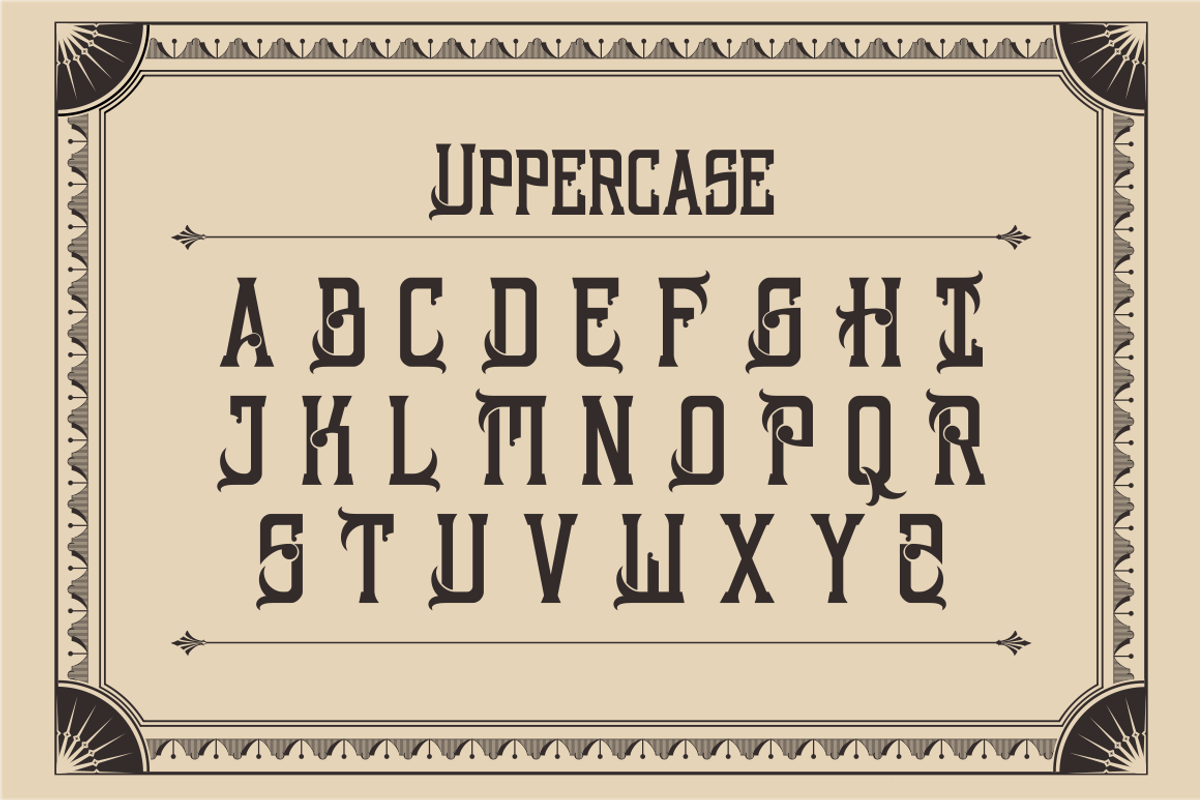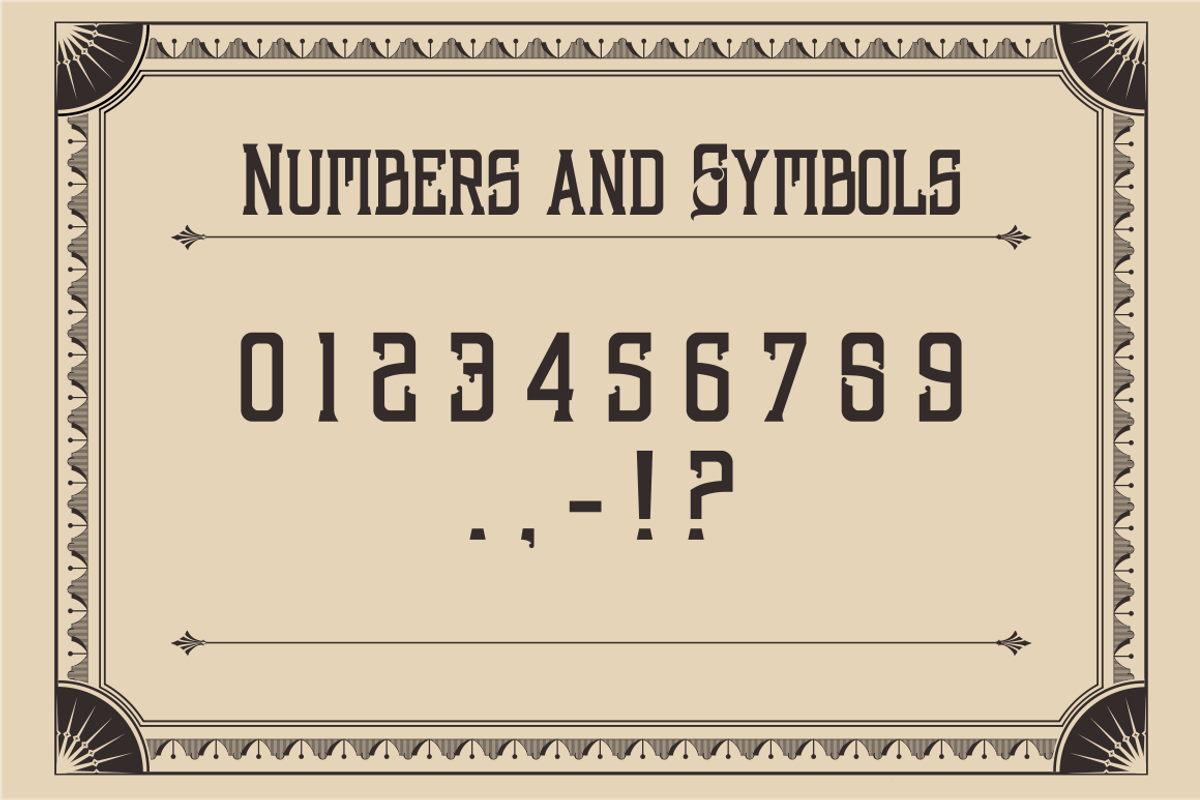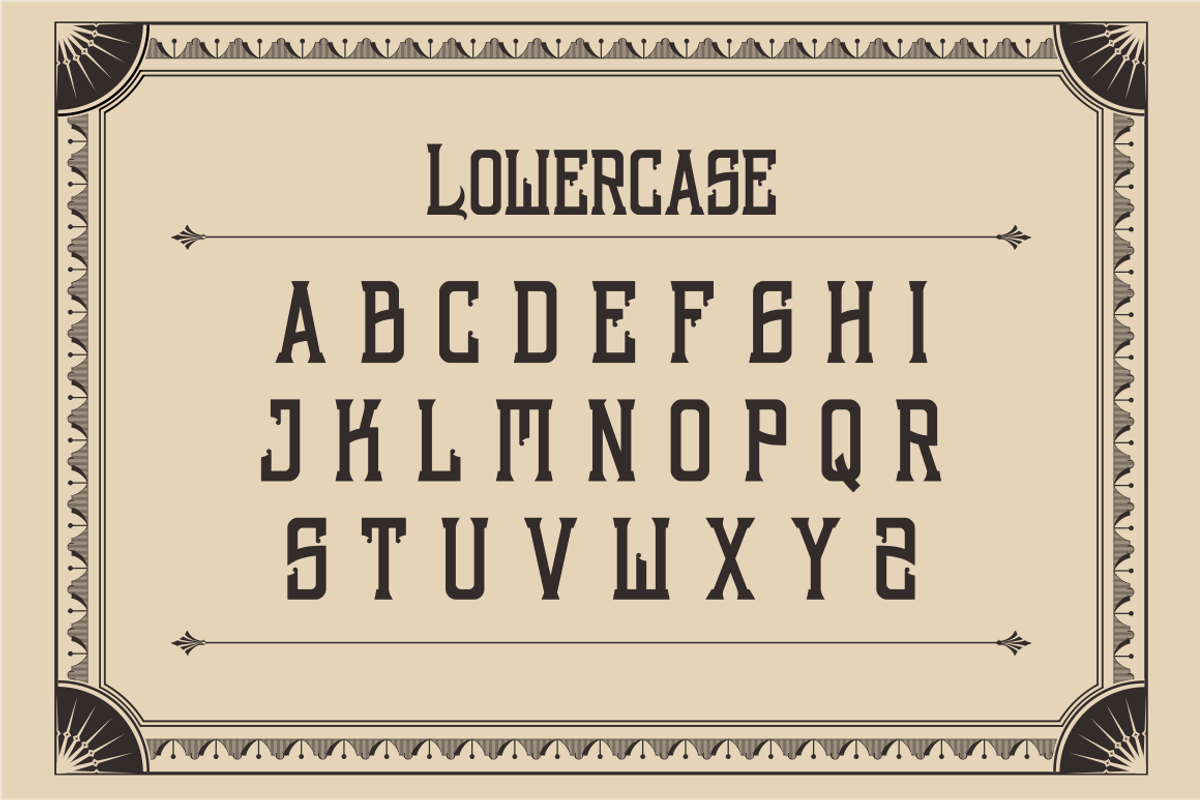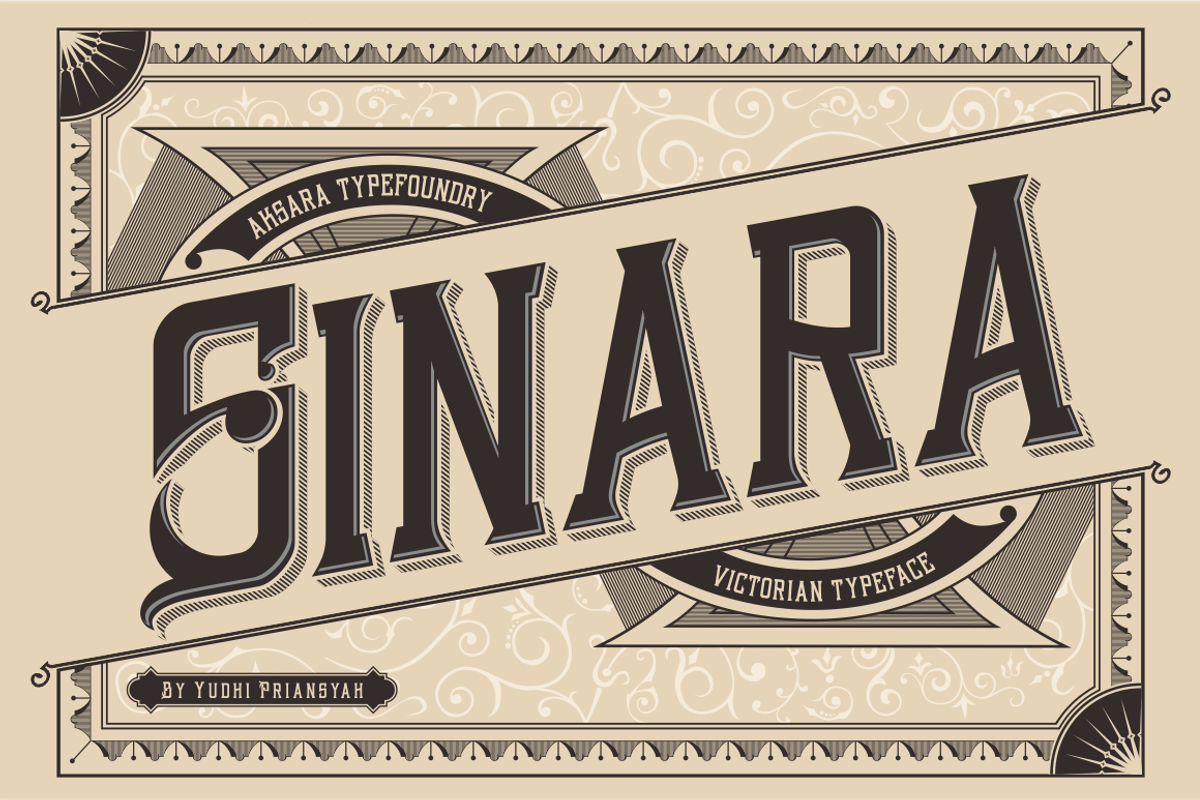
Sinara Font
Sinara Font by Aksara Typefoundry is a font selected for branding, posters, packaging, typography.
Why Sinara Font is worth a look
Sinara Font by Aksara Typefoundry fits naturally into Branding, posters, packaging, typography.